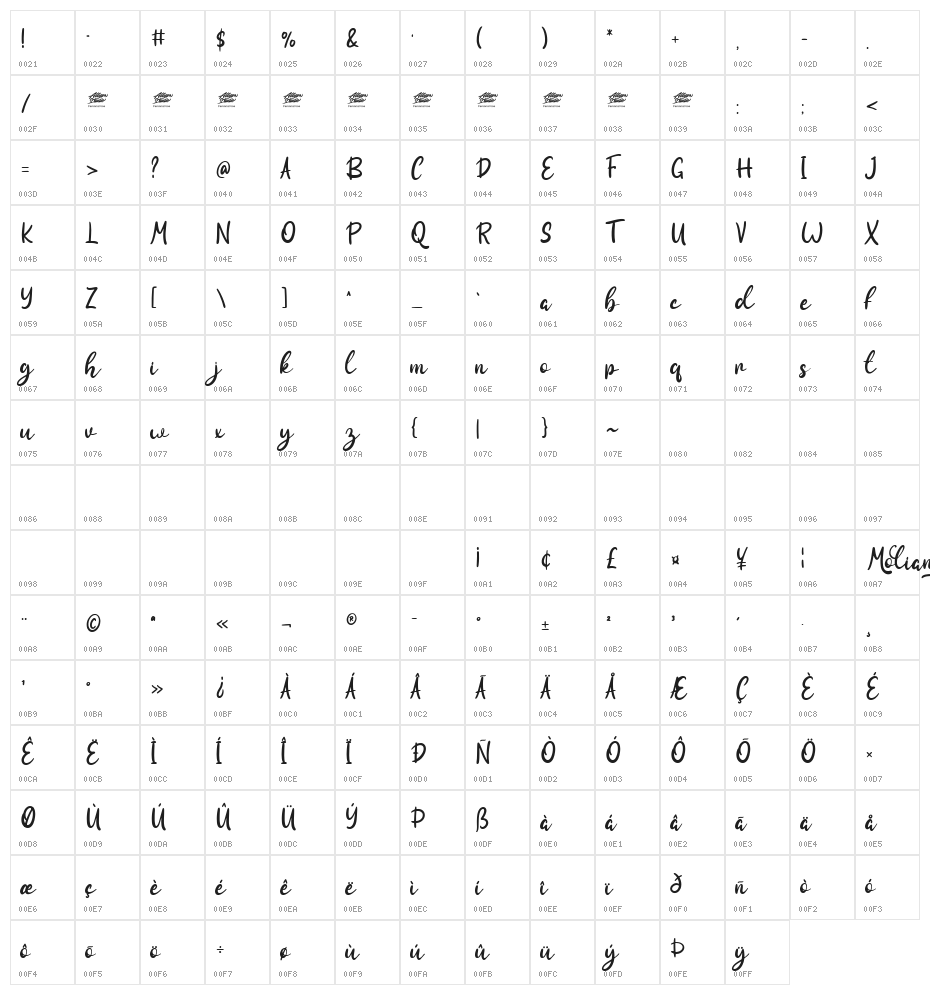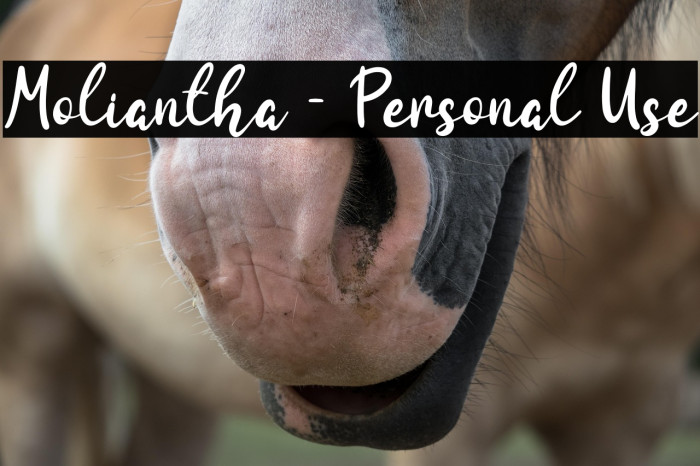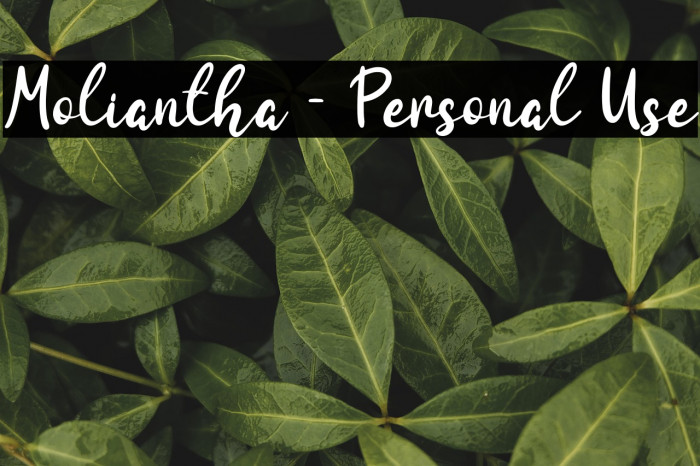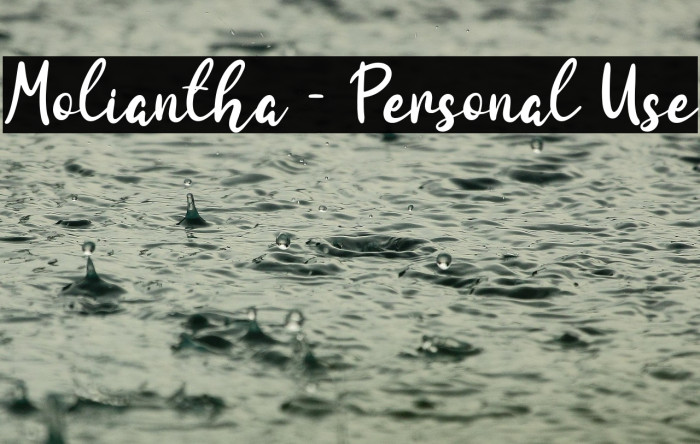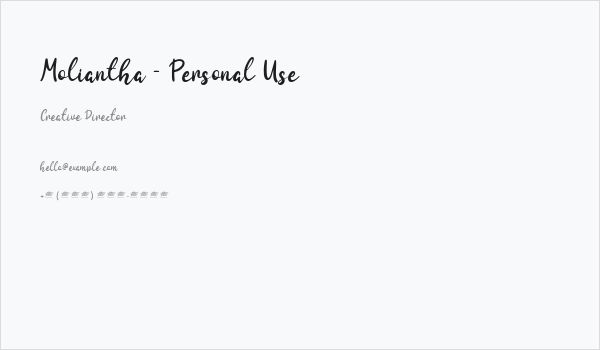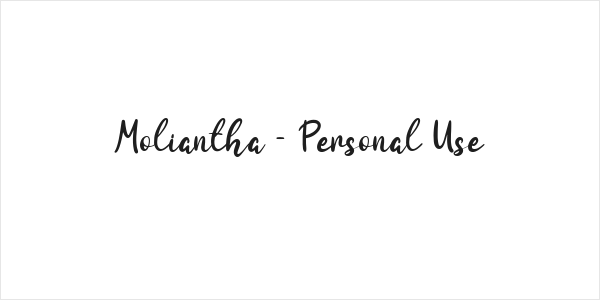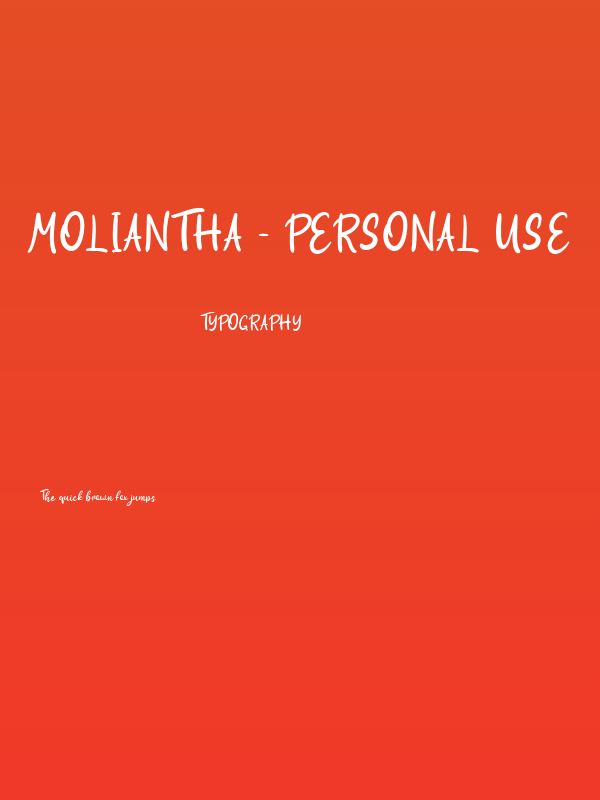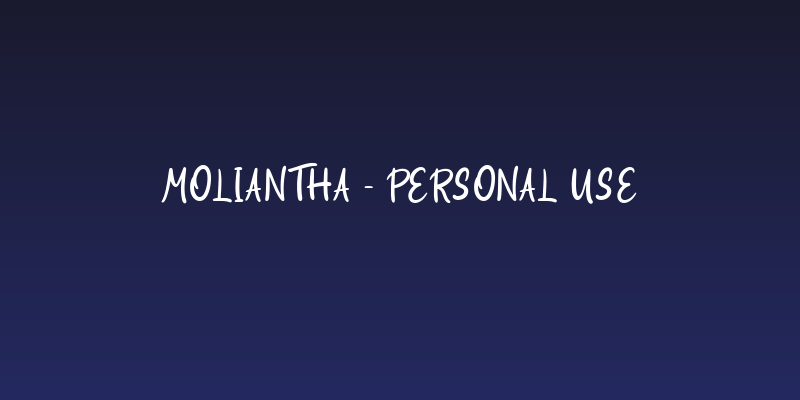
Moliantha - Personal Use Font
Moliantha - Personal Use Description
This font features a lively and expressive script style with a handwritten feel. The uppercase letters are bold and slightly slanted, giving a dynamic and energetic appearance. The lowercase letters are more fluid and connected, enhancing the cursive aesthetic. The characters have a consistent stroke width, contributing to a harmonious look. Special characters and numbers maintain the playful and artistic style, making them suitable for creative projects. The font's overall design is both elegant and approachable, making it versatile for various uses.
| Proposed Projects | Ideal for greeting cards, invitations, branding, logos, and social media graphics. |